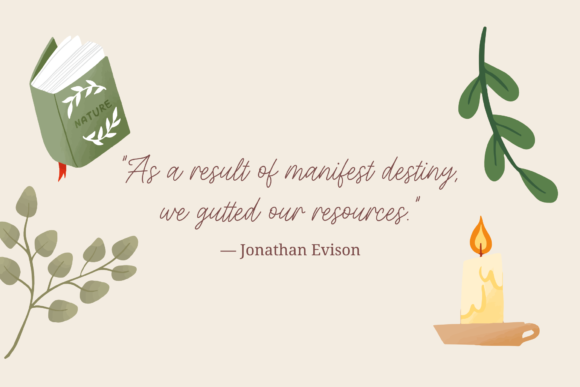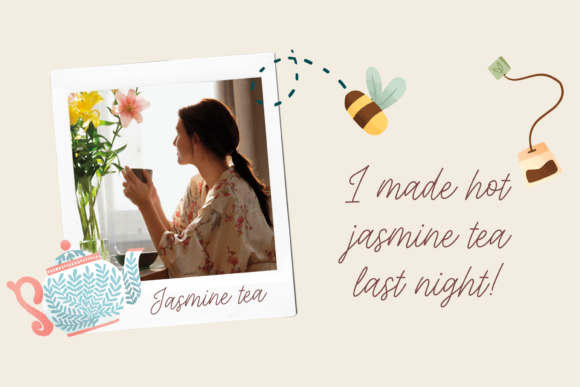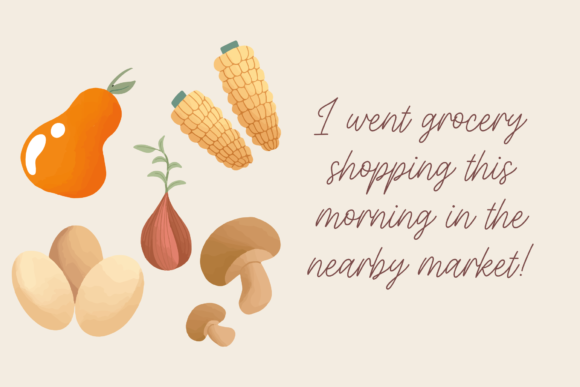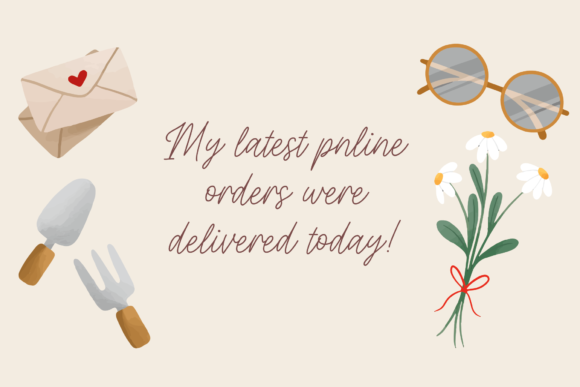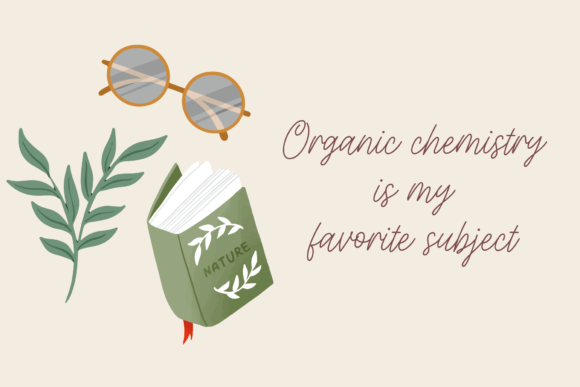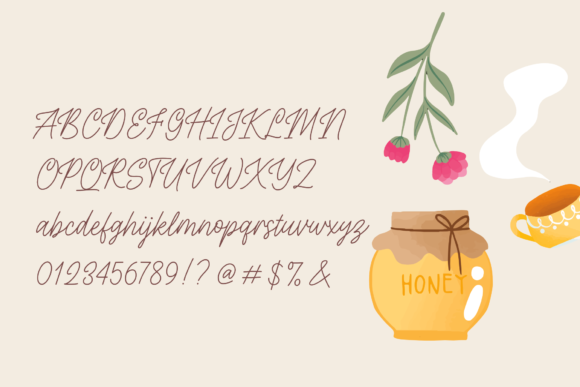
Introduction to Manifestly Font Font
Fonts play a crucial role in design, and the Manifestly Font font is a typeface that brings both character and versatility to any project. Whether you’re working on a branding project, a website, or a print design, the Manifestly Font font offers a unique style that can elevate your work.
Manifestly is a slim and exquisite handwritten font.
Stylish, graceful, and flowing, this font will definitely elevate the look of any of your beautiful creations while keeping them grounded and natural .
Key Features of Manifestly Font Font
Why Choose Manifestly Font Font?
The Manifestly Font font is more than just a typeface – it’s a design tool that helps you communicate your message with style and clarity. Its unique character set and versatile design make it suitable for a wide range of applications, from elegant invitations to bold headlines.
With its carefully crafted letterforms and balanced proportions, the Manifestly Font font ensures readability and visual appeal across all mediums.
What makes Manifestly Font font special?
The Manifestly Font font stands out with its unique design, exceptional readability, and versatility across various design applications.